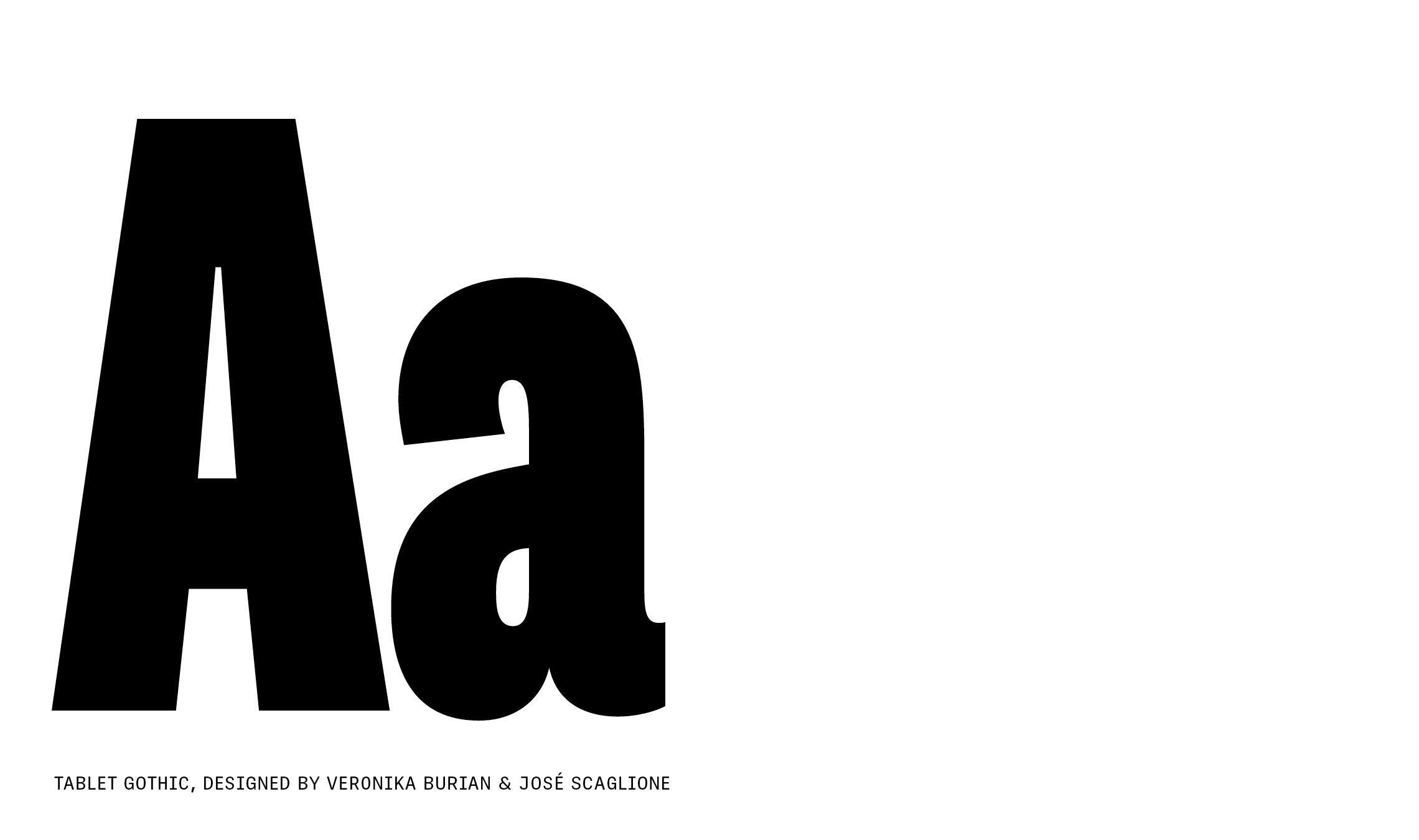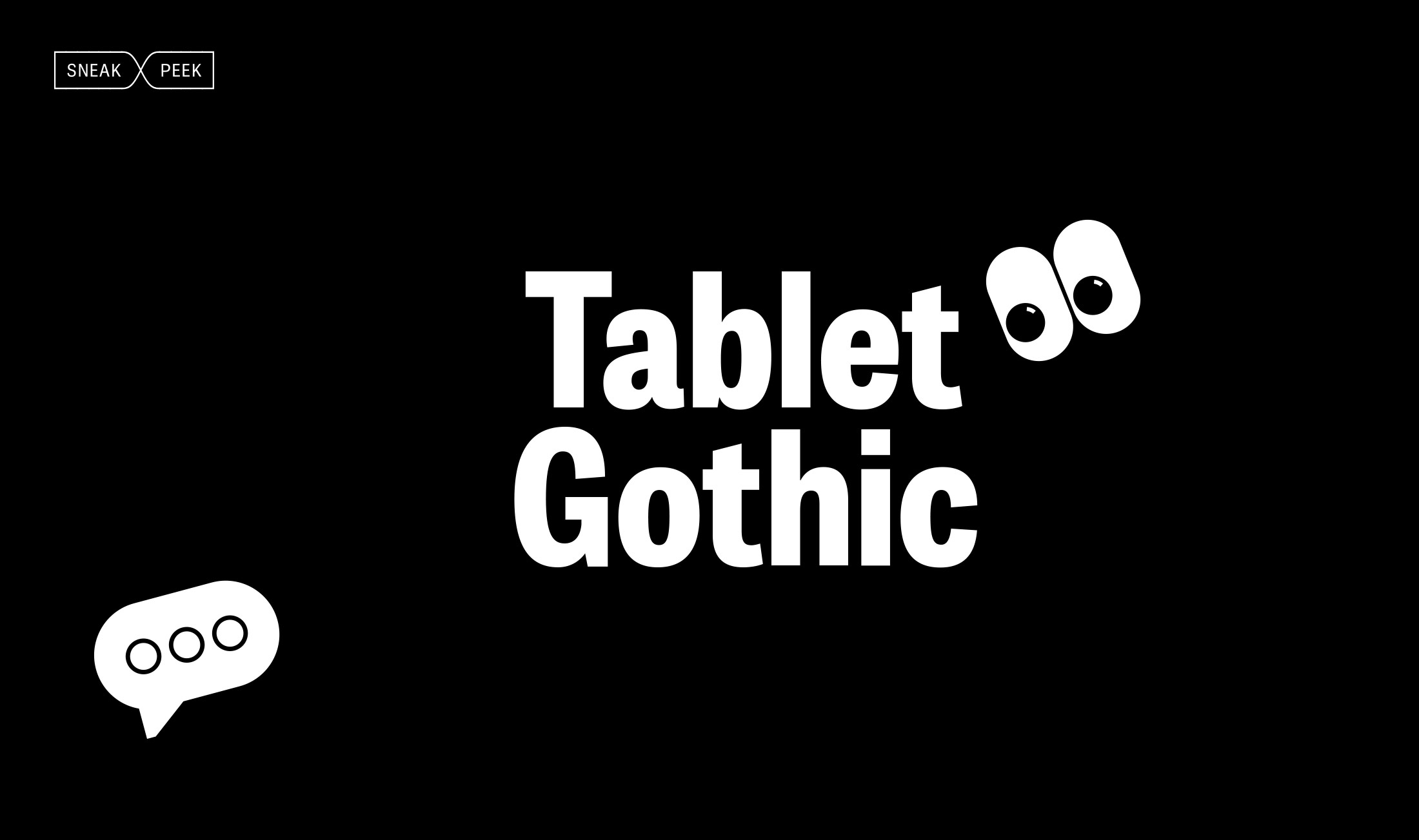
Tablet Gothic: sneak peek
Take a peek at the Tablet Gothic upcoming expansion now and prep your fancy fingers for the free upgrade when it’s released.
We are in a constant state of evaluation and improvement to ensure our font families are in top shape for global use. In line with our value of creating global typefaces, we increased our “standard Latin character set” a few years ago to include Vietnamese, more characters overall, and other typographic niceties in order to serve almost 300 languages. This is no small commitment for each release.
Since Tablet Gothic was made 12 years ago, we recognised it would benefit from these upgrades, so we got to work on it. We are proud to announce a major expansion to Tablet Gothic! This headliner family is one of our largest, with almost-infinite variable styles or 84 predefined styles from which to choose. Tablet Gothic, an industrial 19th-century grotesque, now steps into the future.